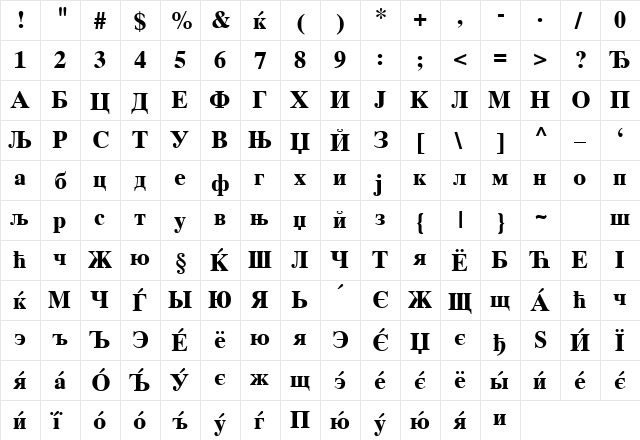
CirilicaTimesBold Regular
Design Context for CirilicaTimesBold Typeface
CirilicaTimesBold takes a measured approach to typography — its balanced proportions and neutral character make it a reliable workhorse for both digital and print work. The heavy weight commands attention and anchors typographic hierarchies.